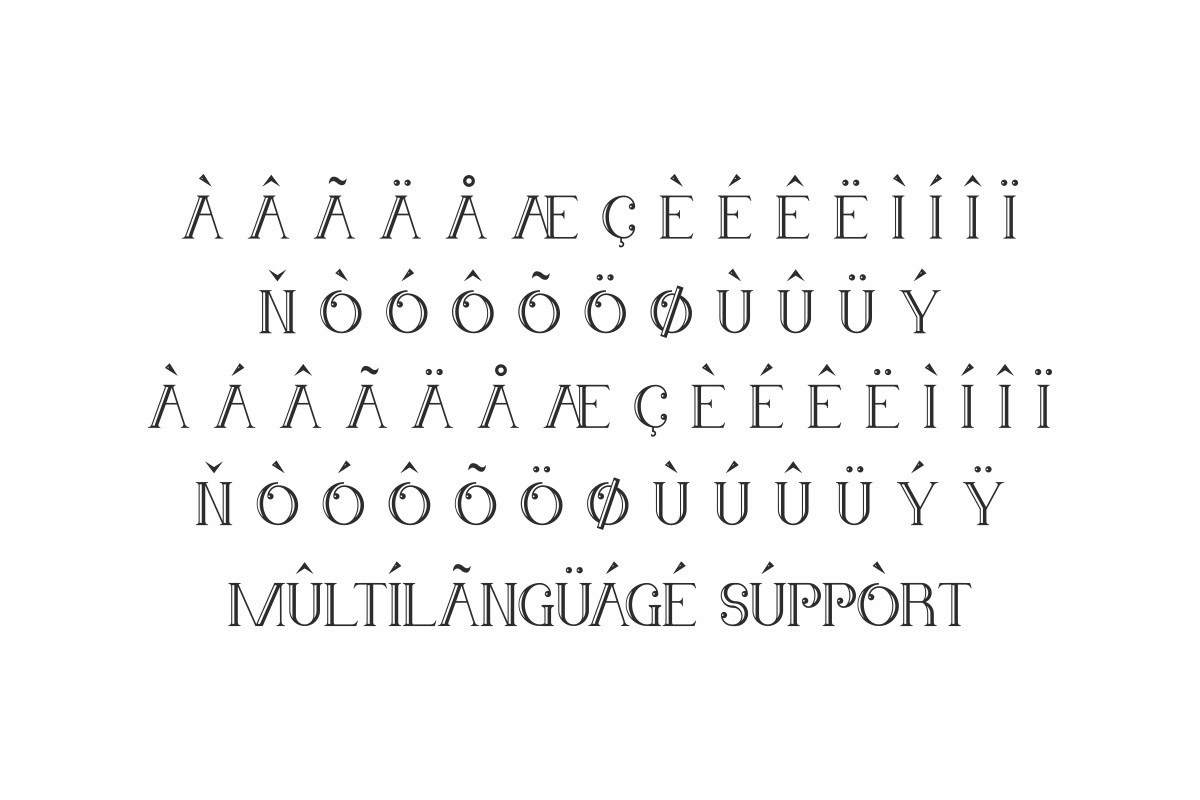
Brevard Font
Brevard Display Font
It’s a serif display Font with elegant and energic style on its letters. The basic font has unique luxurious style that bring elegance while easily to read. It will be amazing for any project : jewelry, fashion, books, branding, barbershop and many more!
Brevard Font includes full set of Uppercase Basic Characters, Numerals and Punctuation. This font would be great to use for any project that requires a bold custom look!